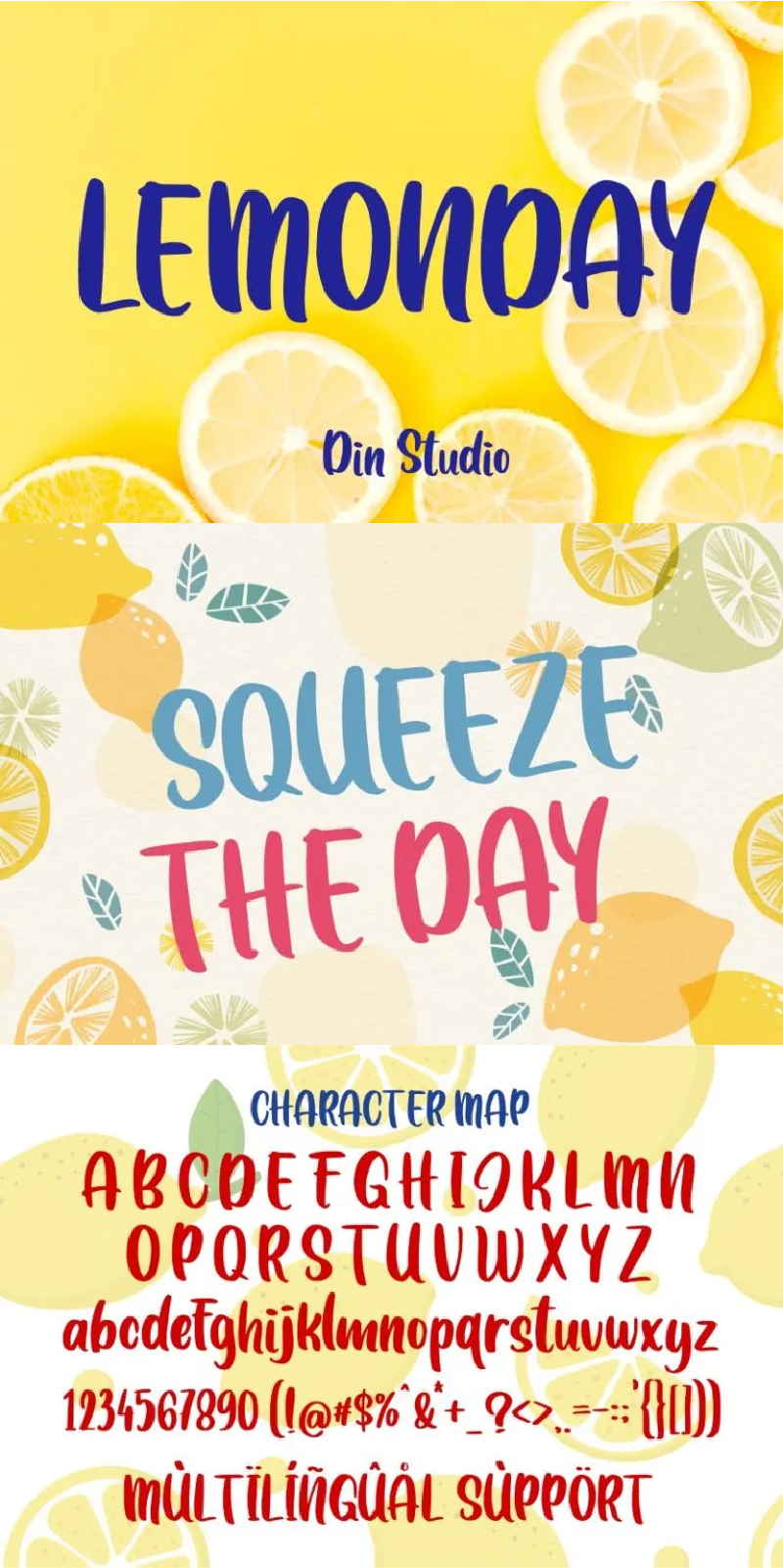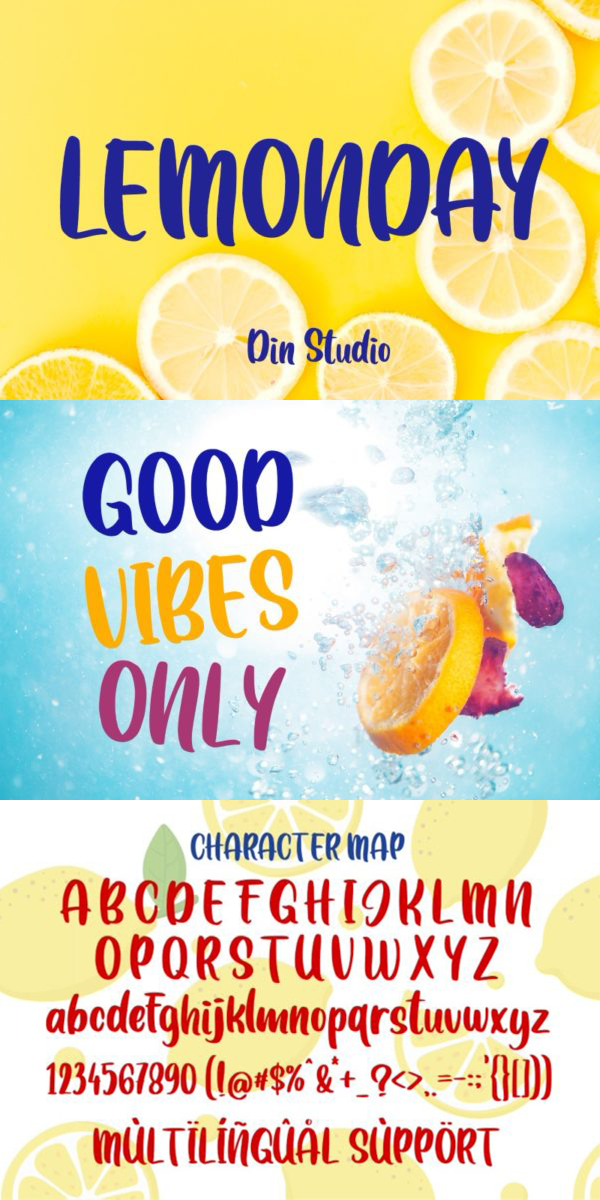
Lemonday Font
About Lemonday
LEMONDAY font made from a chic brush. The font will make your designs more beautiful. It is perfect for any signatures, name card designs, branding projects, product packaging, quotes, logos, book covers, and other awesome projects. With the combination of elegant and casual style, this font contains a full set of lowercase and uppercase letters, numerals, and punctuations.